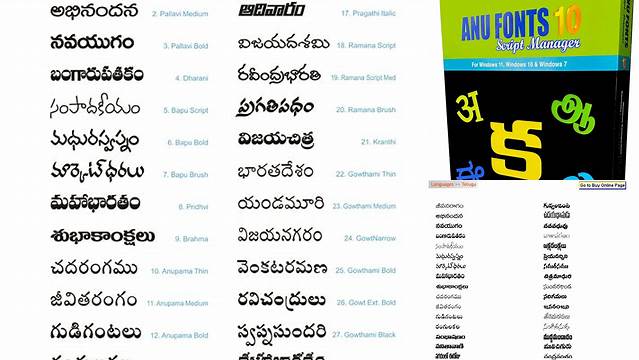
Hey guys! Are you looking for a way to add some flair to your Telugu typing? Well, you've come to the right place! We're diving deep into the world of Anu Telugu Fonts v10, showing you how to snag them for free and making sure you're all set to go. Let's get this party started and get you typing in style!
Anu Telugu Fonts v10: What's the Buzz?
So, what exactly is all the fuss about Anu Telugu Fonts v10? Simply put, it's a collection of fonts designed specifically for typing in the Telugu language. These fonts are super important because they let you display and type Telugu characters correctly on your computer. Without them, you might see a bunch of gibberish instead of the beautiful Telugu script. Think of it as unlocking the secret code to Telugu digital communication. This particular version, v10, is a popular and reliable choice, known for its compatibility and ease of use. It's like the classic car of Telugu fonts – dependable and gets the job done. The fonts are designed to be user-friendly, meaning they work well with different software and operating systems. This makes them a go-to option for writers, designers, and anyone else who needs to work with Telugu text. But how to get them? Well, stick around, because we're about to show you the ropes and get you set up to type like a pro. Let's get started and add some color to your Telugu writing experience! Remember, correct and visually appealing fonts are extremely important to convey information properly and attract readers!
Typing in Telugu: Getting Started with Anu Telugu Fonts v10
Anu Telugu Fonts v10 in Action: Real-World Uses
So, how can you use Anu Telugu Fonts v10 in the real world? Let's explore some practical applications. If you're a writer or blogger, you can use these fonts to create engaging Telugu content for your audience. These fonts help you write articles, stories, and posts that are visually appealing and easy to read. Graphic designers can use the fonts to create stunning Telugu designs. You can create posters, brochures, and other marketing materials. These fonts will help you design unique and culturally relevant materials. If you are a student, you can use the fonts for school projects, presentations, and other assignments. This will help you present your work professionally. If you're creating digital content, use the fonts to design websites, social media posts, and other digital materials. The Anu Telugu Fonts v10 will enhance the visual appearance of your content. If you're creating documents or forms, you can use the fonts for official communications and personal documents. This is essential for those who want to ensure their Telugu text is legible. With Anu Telugu Fonts v10, you have the tools to create, design, and communicate effectively in Telugu across a wide range of applications. Let's explore some of the amazing things you can do.
Conclusion: Your Telugu Typing Journey Starts Now!